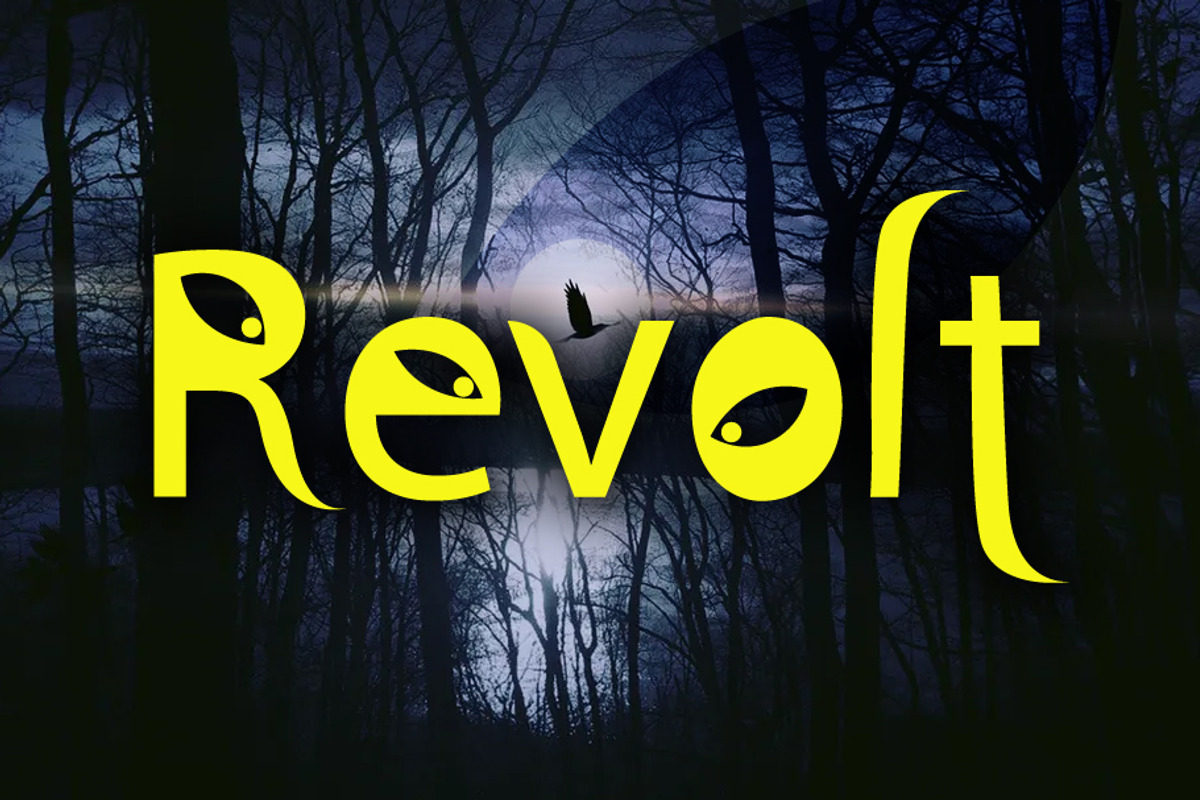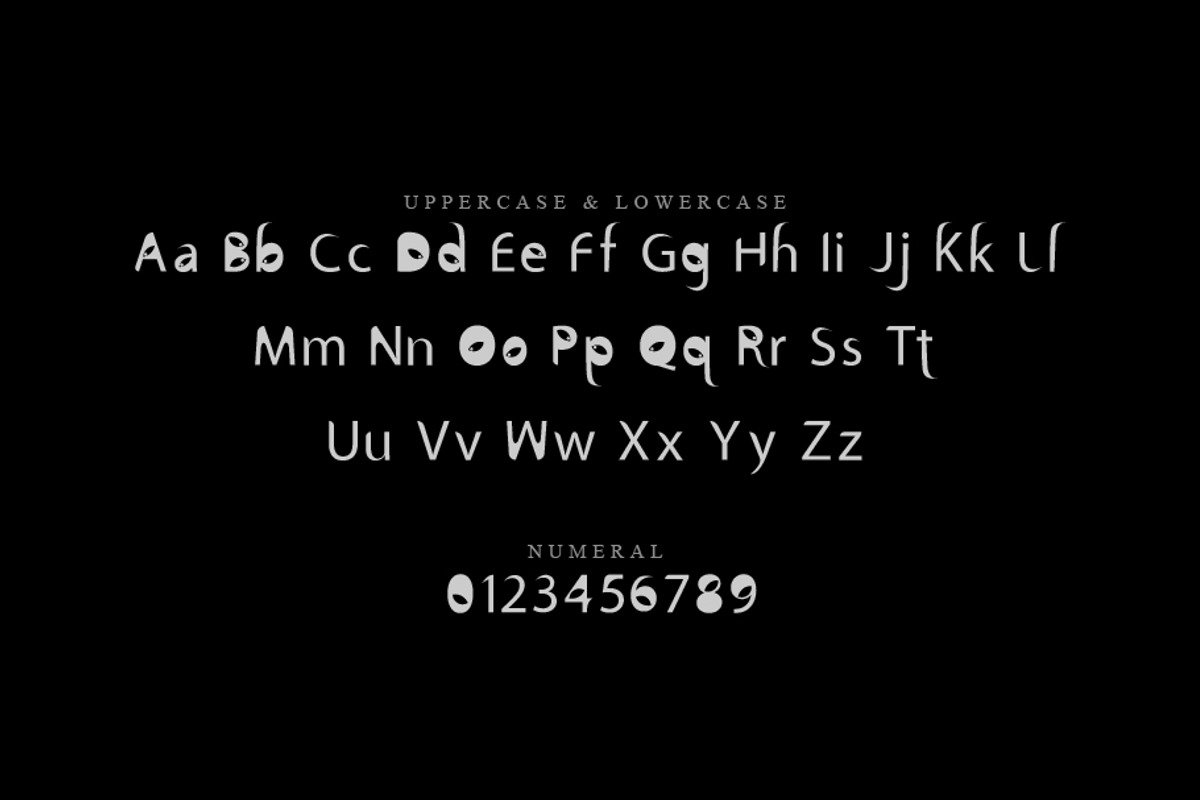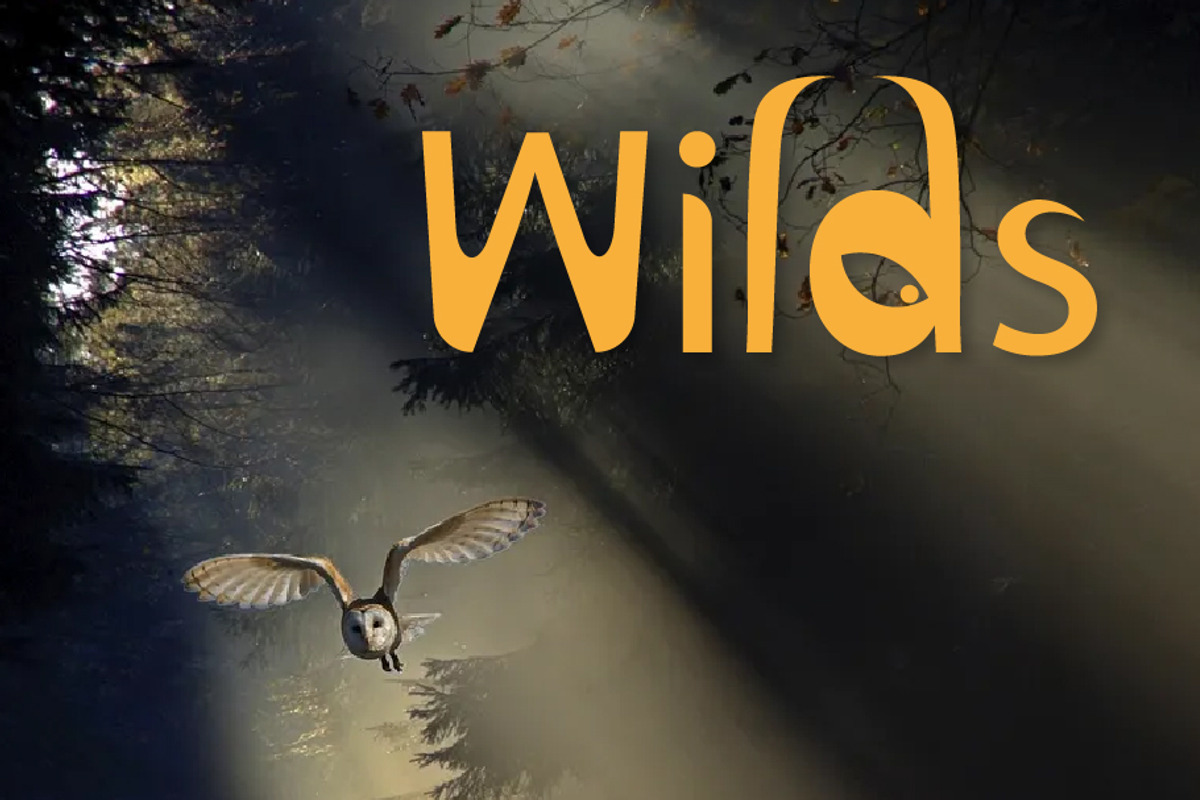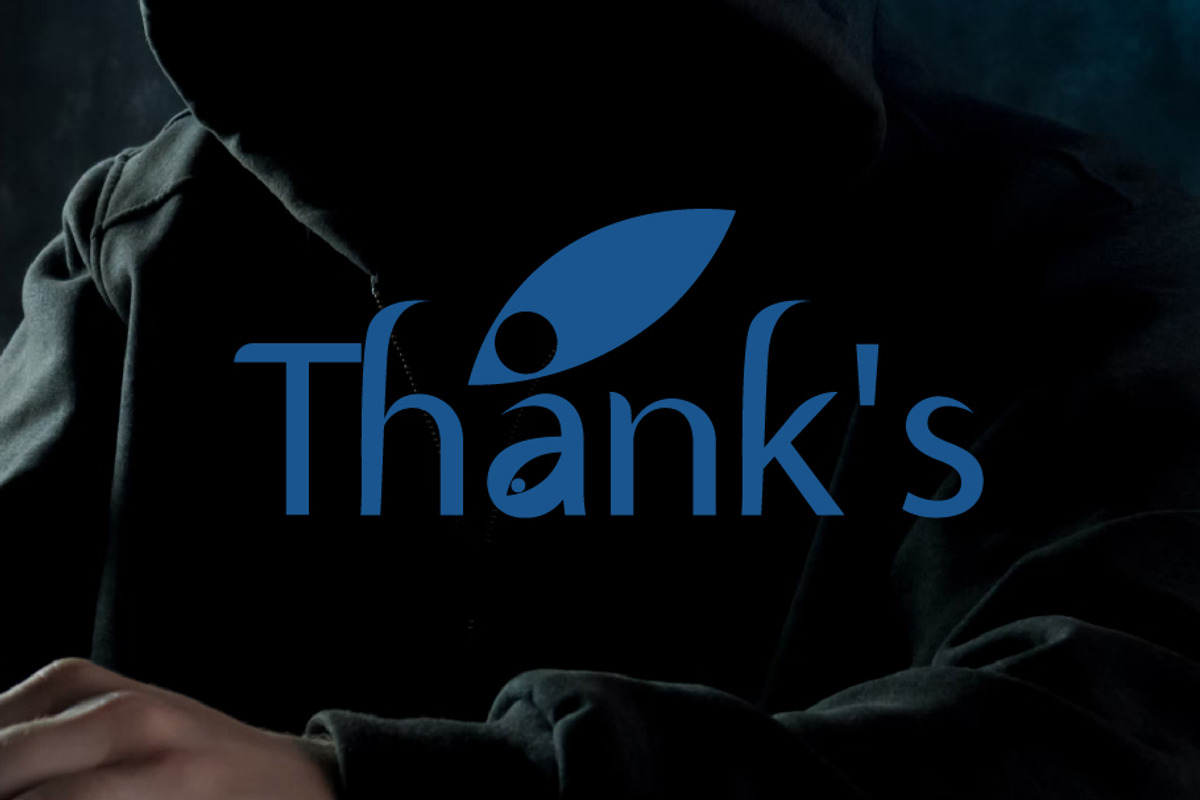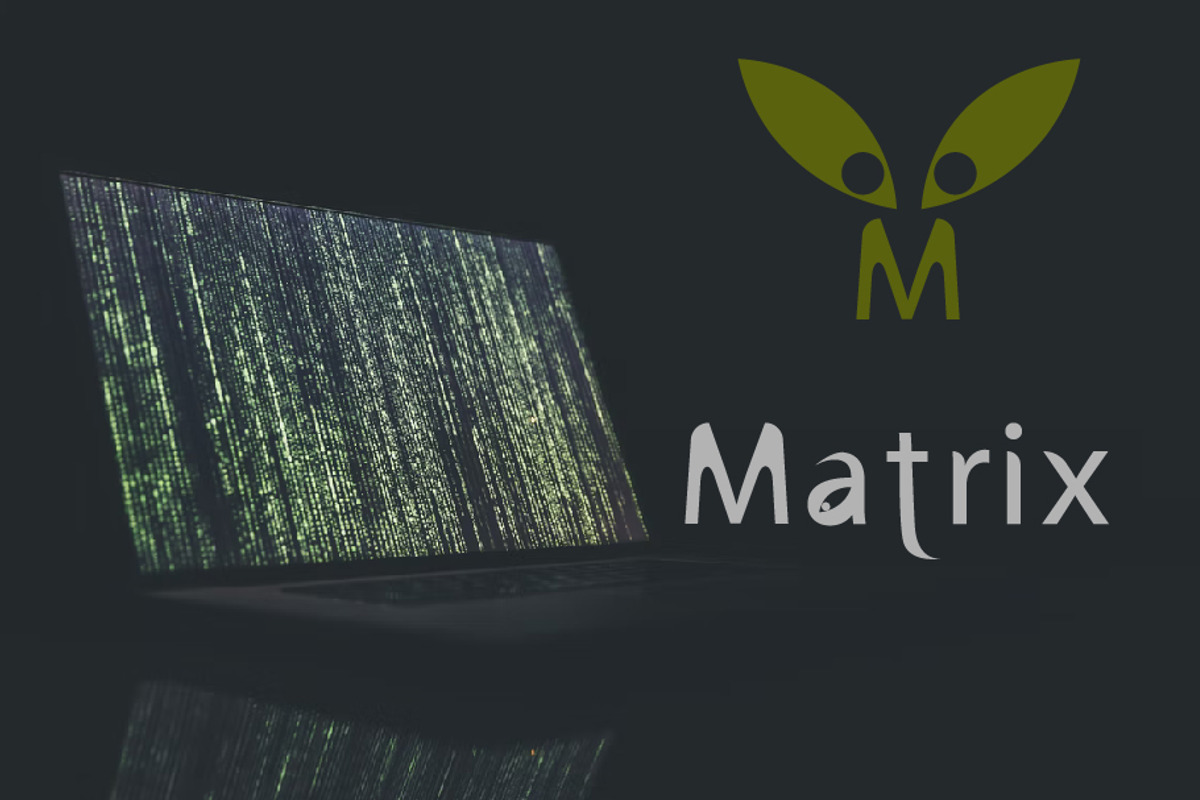
Revolt
Revolt is a display font with soft edges. It is ideal for headlines, headers, logos, labels, packaging, postcards, presentations, magazines, invitations, and more.